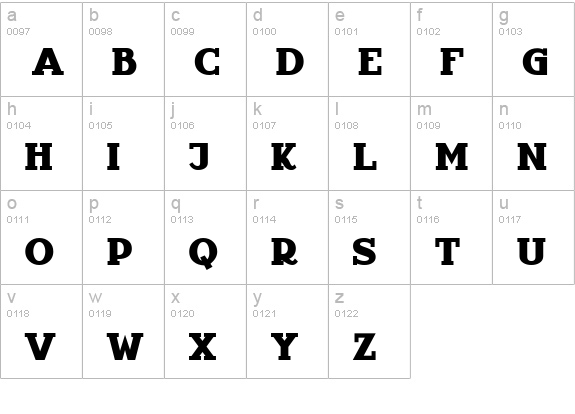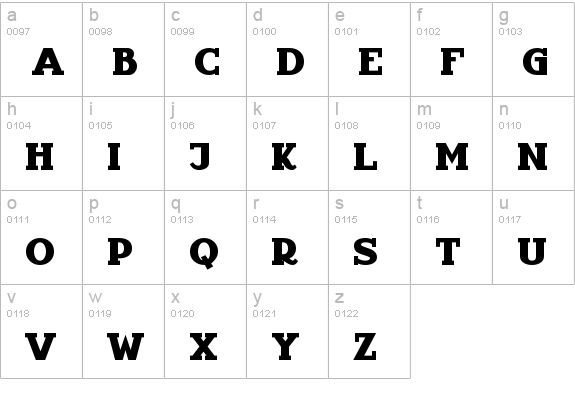
InfantylFat Font Details
Introducing InfantylFat font, a delightful and playful typeface that is sure to bring a touch of charm to any creative project. This unique font captures the innocence and joy of childhood with its chubby and rounded letterforms. InfantylFat font is a perfect choice for designs targeting children's products, such as books, posters, toys, and games. Its friendly and approachable appearance will instantly captivate young audiences and create a sense of wonder and excitement. The versatility of InfantylFat font is truly impressive, allowing it to be used in a wide range of design projects. Whether you're working on a birthday invitation, a children's book cover, or a playful branding campaign, this font will effortlessly convey a sense of whimsy and fun. And the best part? InfantylFat font is available for free download at FontsMarket.com. This means that you can easily access and utilize this charming typeface in all your creative endeavors without any cost or restrictions. Simply visit FontsMarket.com, find the InfantylFat font, and enjoy the freedom to create without limitations. So, if you're looking to add a touch of childlike wonder to your designs, look no further than InfantylFat font. Download it for free at FontsMarket.com and let your imagination run wild with this delightful typeface.